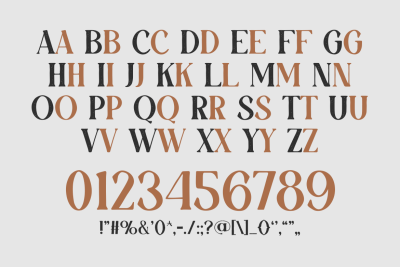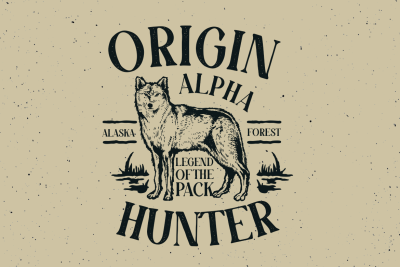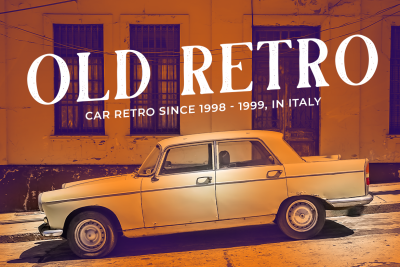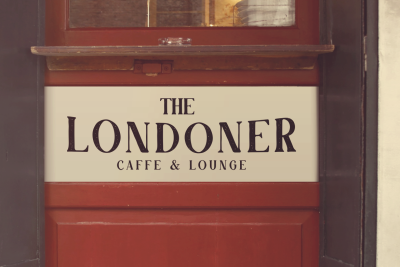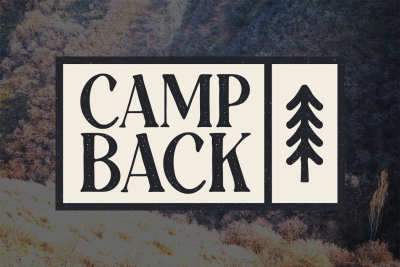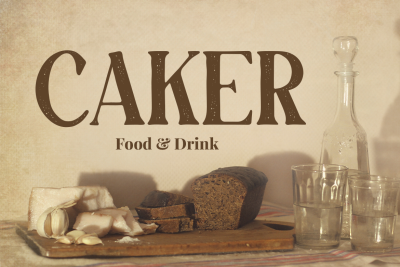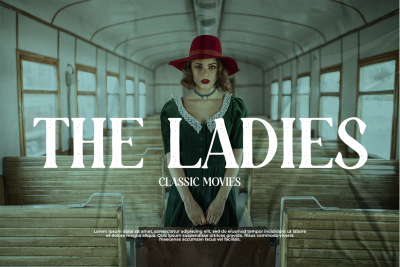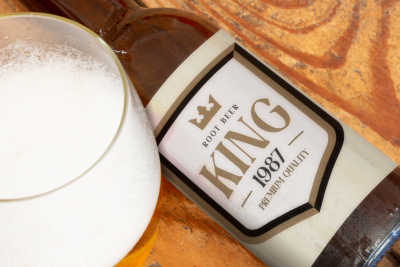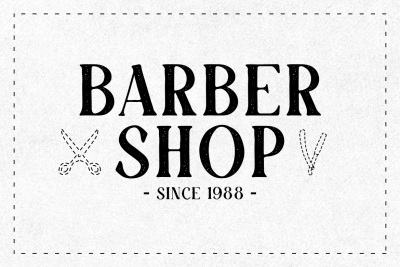
Retro Font JABROWZKY delivers bold, vintage-inspired design with sharp serifs and textured lettering. Its timeless look not only draws attention but also adds sophistication to any project. Moreover, the font’s warm, sepia-toned presentation enhances its retro charm, making it perfect for blending nostalgia with modern aesthetics.
You can use Retro Font JABROWZKY to create striking headlines, logos, and posters. Furthermore, its intricate details enhance elegance while ensuring designs remain engaging. Whether you want to channel the 1920s, 1950s, or 1970s, this font offers the flexibility to suit your vision. As a result, retro fans and modern audiences alike will appreciate its unique character.
What sets JABROWZKY apart is its ability to balance boldness and sophistication. The font is both striking and readable, making it ideal for projects where clarity and visual impact are essential. Additionally, its vintage essence can evoke emotion and tell a story, making it an excellent tool for designs that need a deeper connection with their audience.
In conclusion, Retro Font JABROWZKY combines charm, versatility, and character, making it an outstanding choice for creatives who want their work to stand out. Its ability to bridge past and present design trends makes it an essential tool for anyone looking to leave a lasting impression.